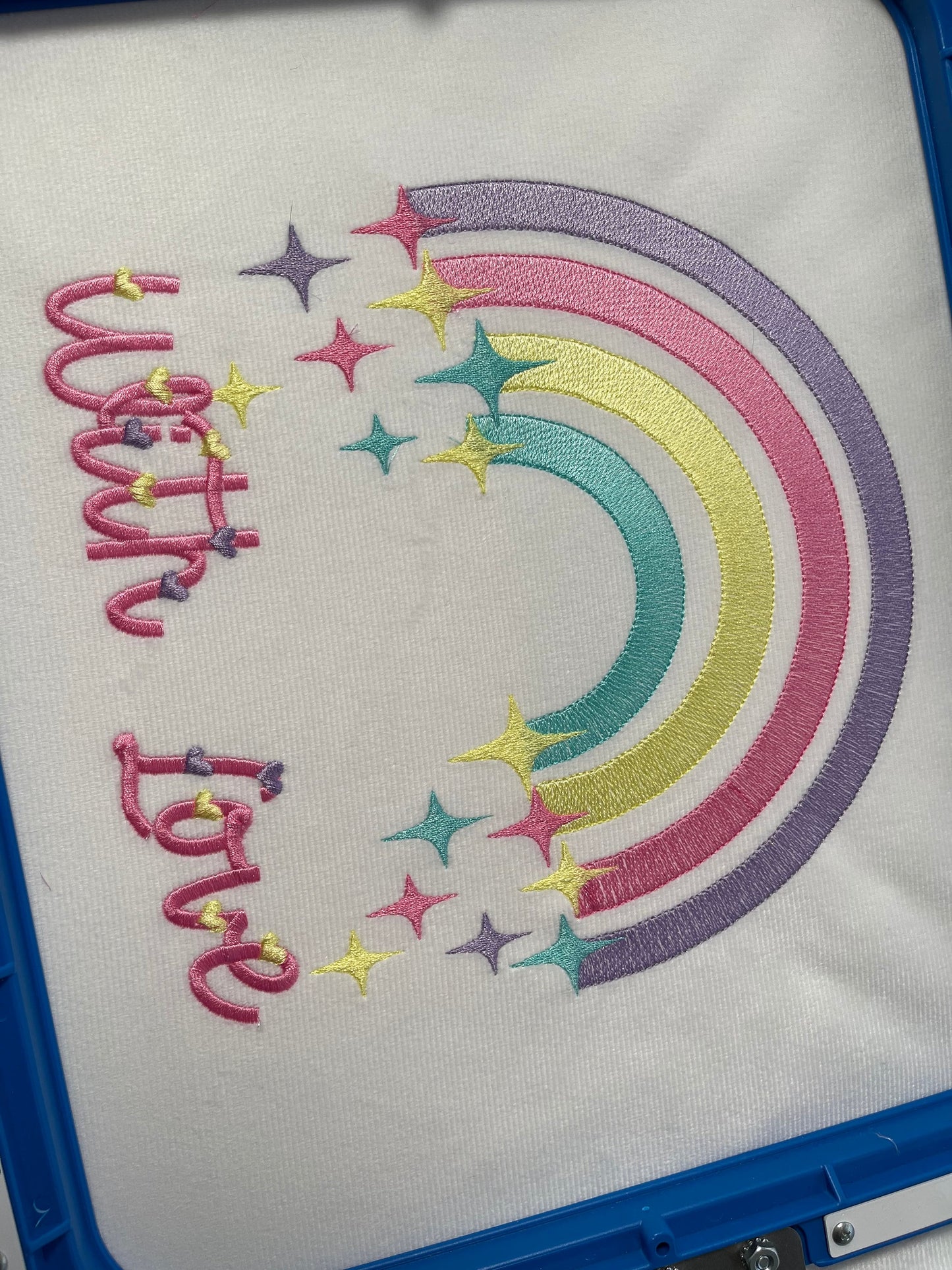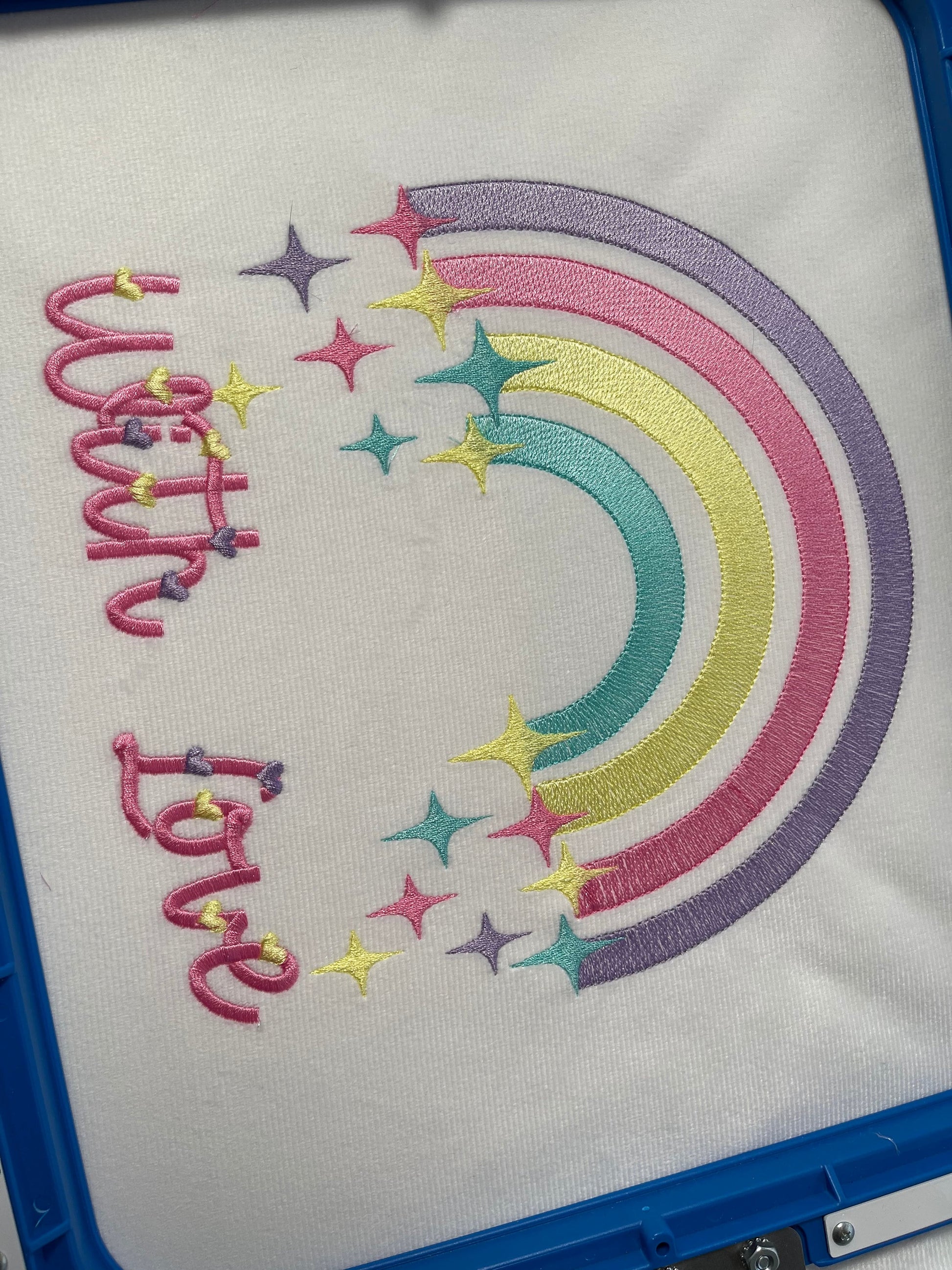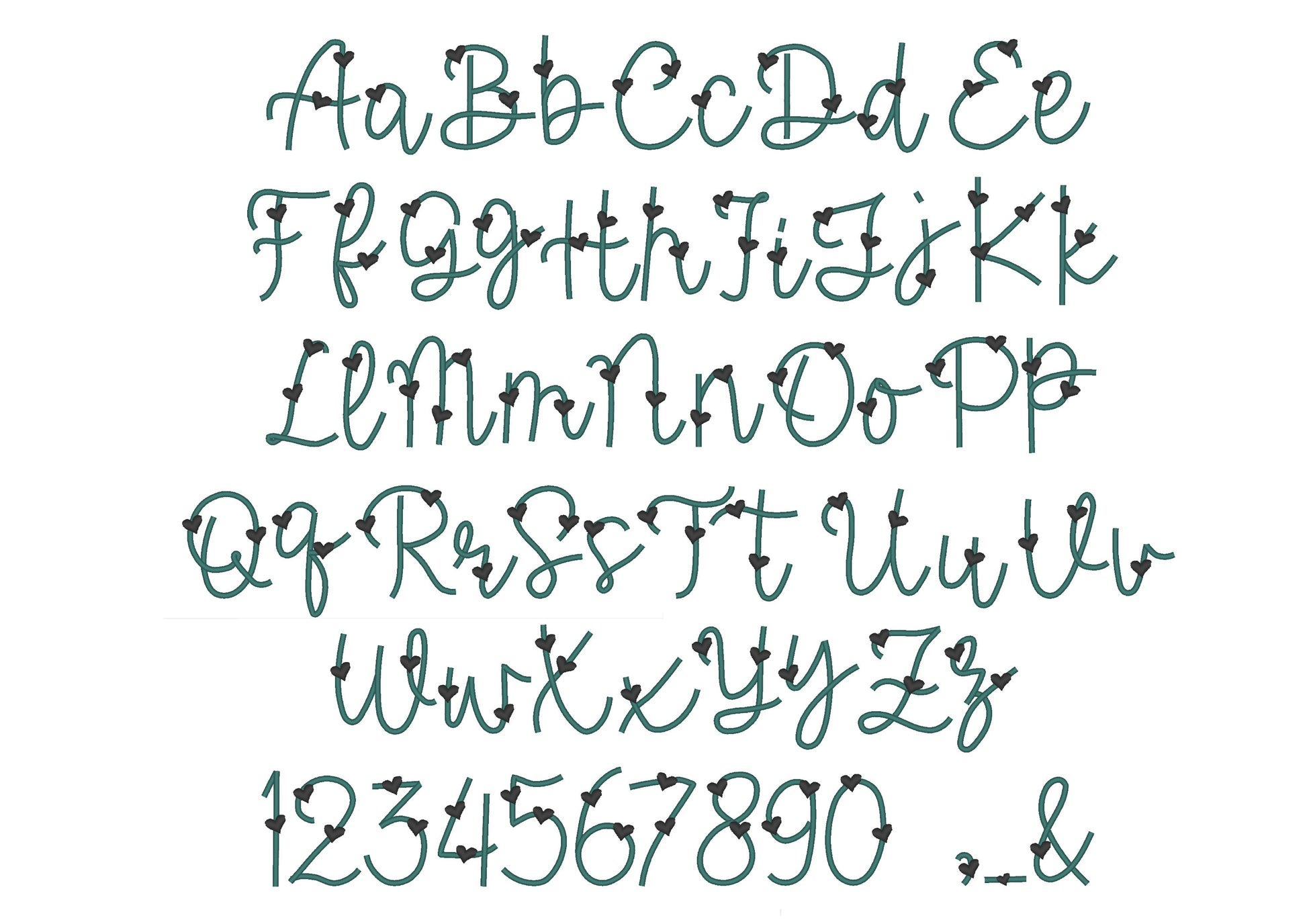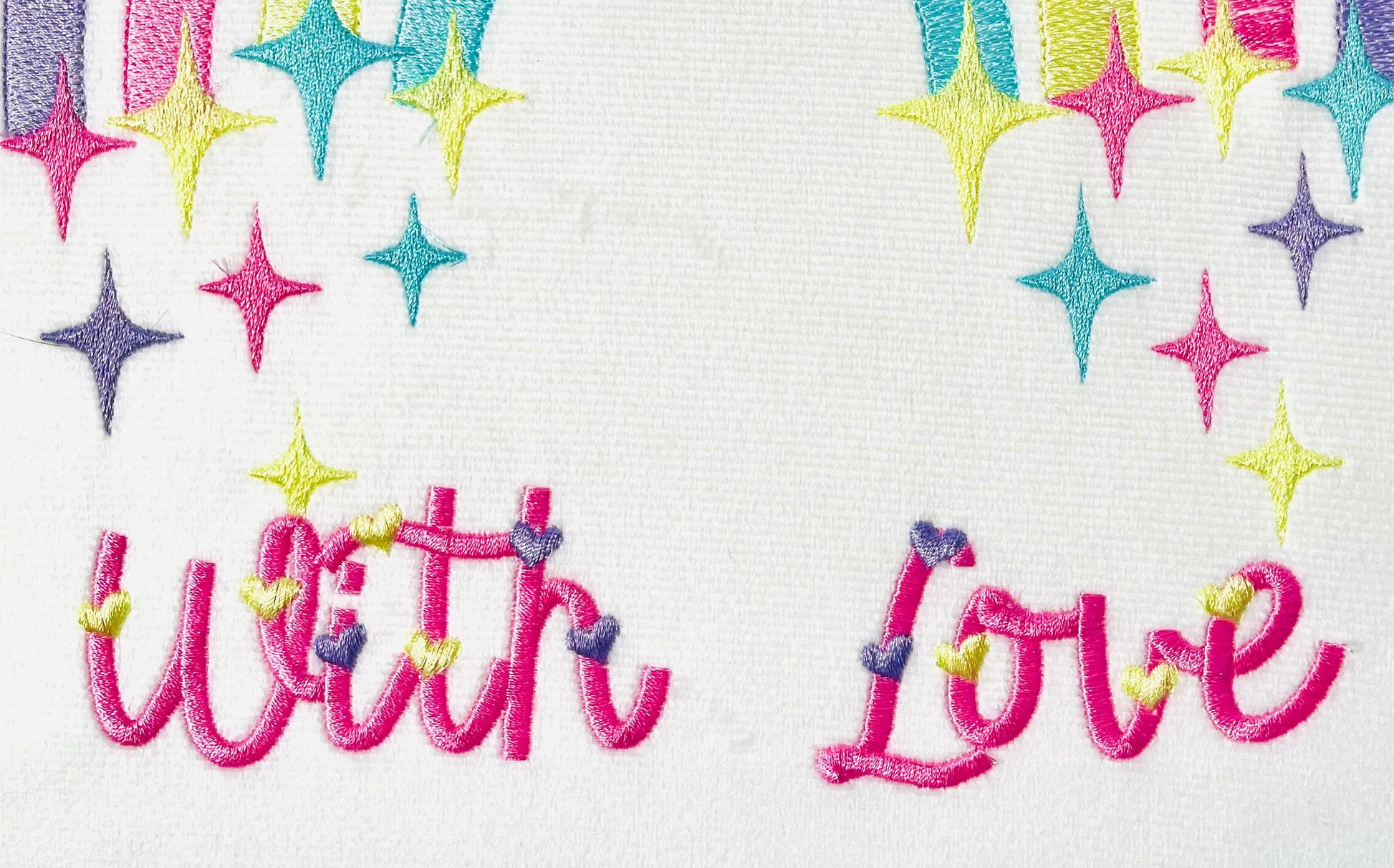
Tiny Heart Satin Font
Sizes (inches): 1.3", 1.6", 2", 2.4"
Or click to open the linkA thin satin line handwritten font with tiny hearts. Sweet for kids' names, small monograms and Valentine's gifts.
Uppercase and lowercase letters, numbers 0 to 9, an ampersand, comma and dash, in four sizes: 1.6, 2, 2.5 and 3 inches.
- Tiny heart thin line font
- Uppercase and lowercase letters, numbers 0-9, & , -
- 4 sizes, 1.6 to 3 in